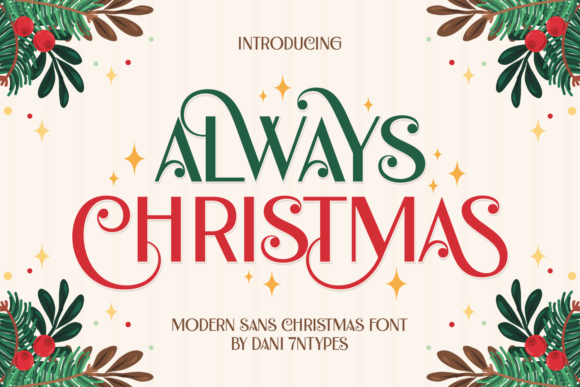
The Magic of Always Christmas Font: A Designer’s Delight
I still remember the holiday season when I was working on a project for a client who wanted a festive yet professional look. I scoured the internet for the perfect font, but nothing seemed quite right. That was until I stumbled upon Always Christmas Font. With its elegant curves, decorative swirls, and beautifully balanced letterform, it captured the magical spirit of holiday celebrations in a way that felt both modern and timeless.
- ✅ Elegant curves and decorative swirls that add a touch of festive joy to any design
- ✅ Beautifully balanced letterform that works well for both headings and body text
- ✅ Combination of clean sans structure and playful Christmas flourishes for a professional yet joyful holiday aesthetic
- ✅ Every character feels handcrafted to add an extra touch of cheer to your seasonal projects
- ⚠️ Some users may find the font a bit too ornate for very small text sizes or body text
- ⚠️ Limited availability of certain characters or glyphs, which may require some creative workaround
- Experiment with OpenType features, such as swashes and stylistic alternates, to add more flair to your design
The Story Behind Always Christmas Font
While the true story behind Always Christmas Font remains a mystery, it’s easy to imagine a designer sitting by the fireplace, sipping hot cocoa, and pouring their heart into creating the perfect holiday font. Perhaps they wanted to capture the magic of childhood Christmases, with all their wonder and excitement. Whatever the inspiration, Always Christmas Font is a true gem that brings warmth and joy to any design.
| Font Name | Always Christmas Font |
| Author | Dani (7NTypes) |
| Is Always Christmas Font suitable for body text? | While Always Christmas Font is primarily designed for headings and display text, it can be used for body text in larger sizes. However, some users may find it a bit too ornate for very small text sizes. |